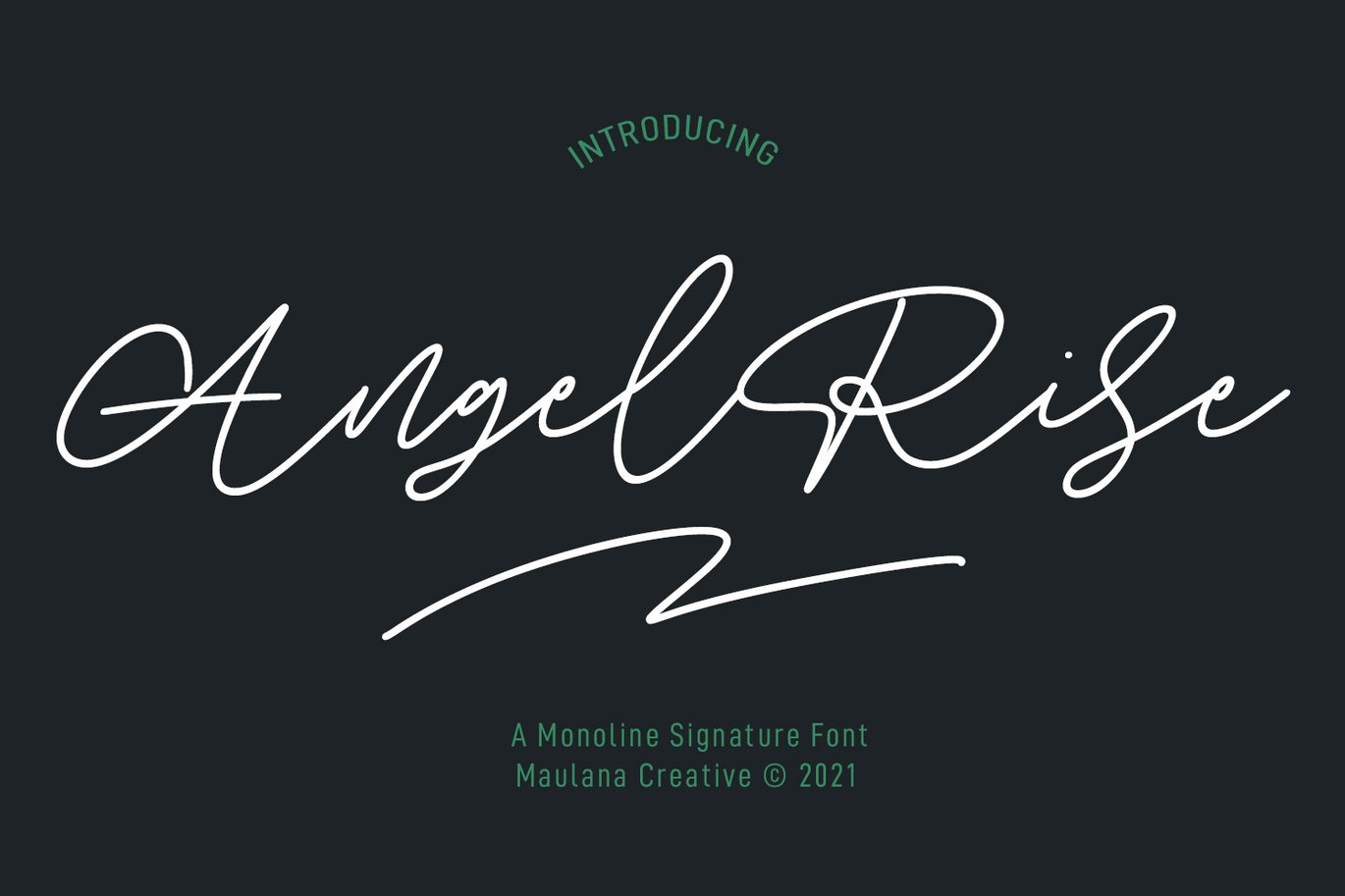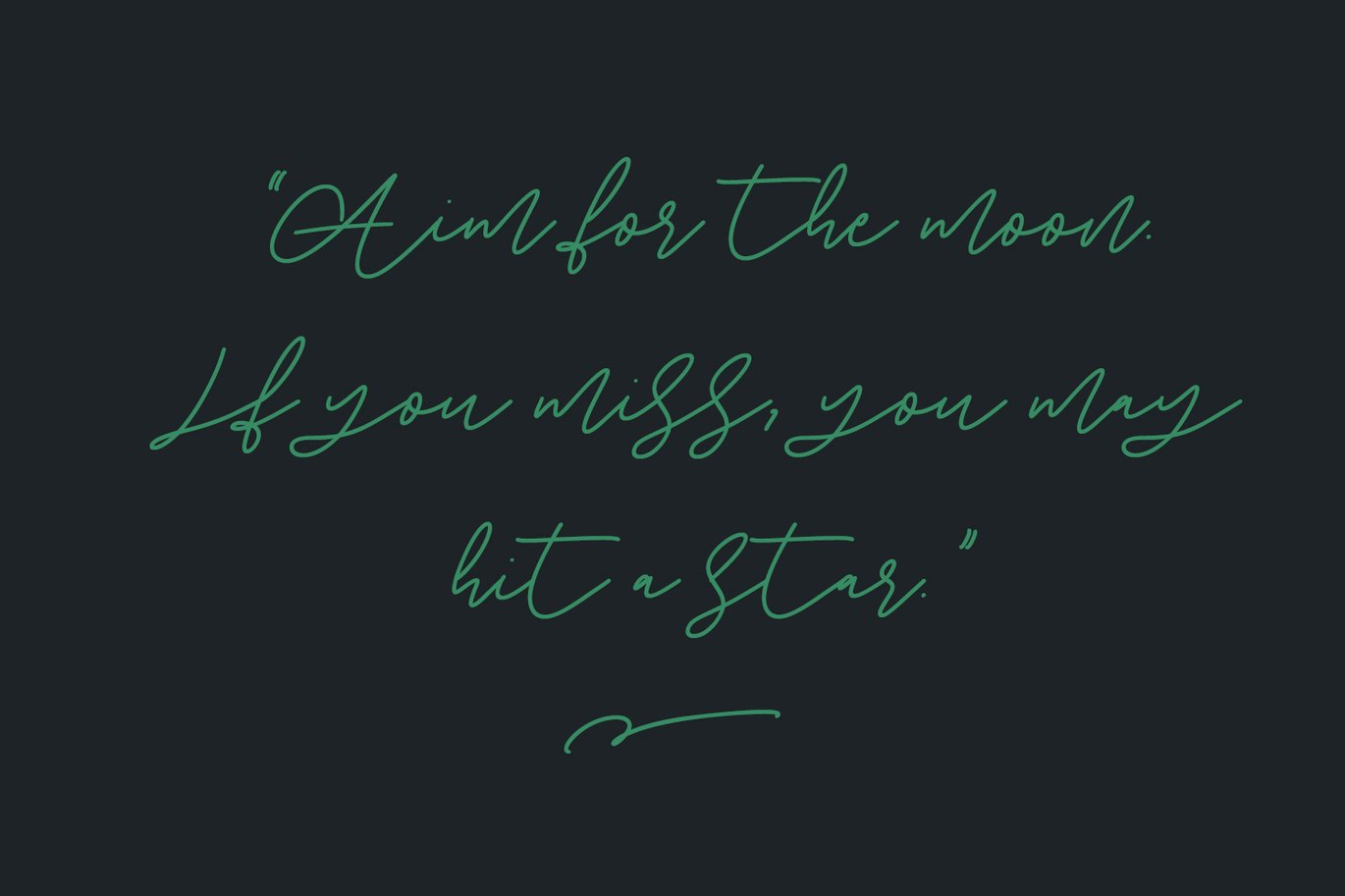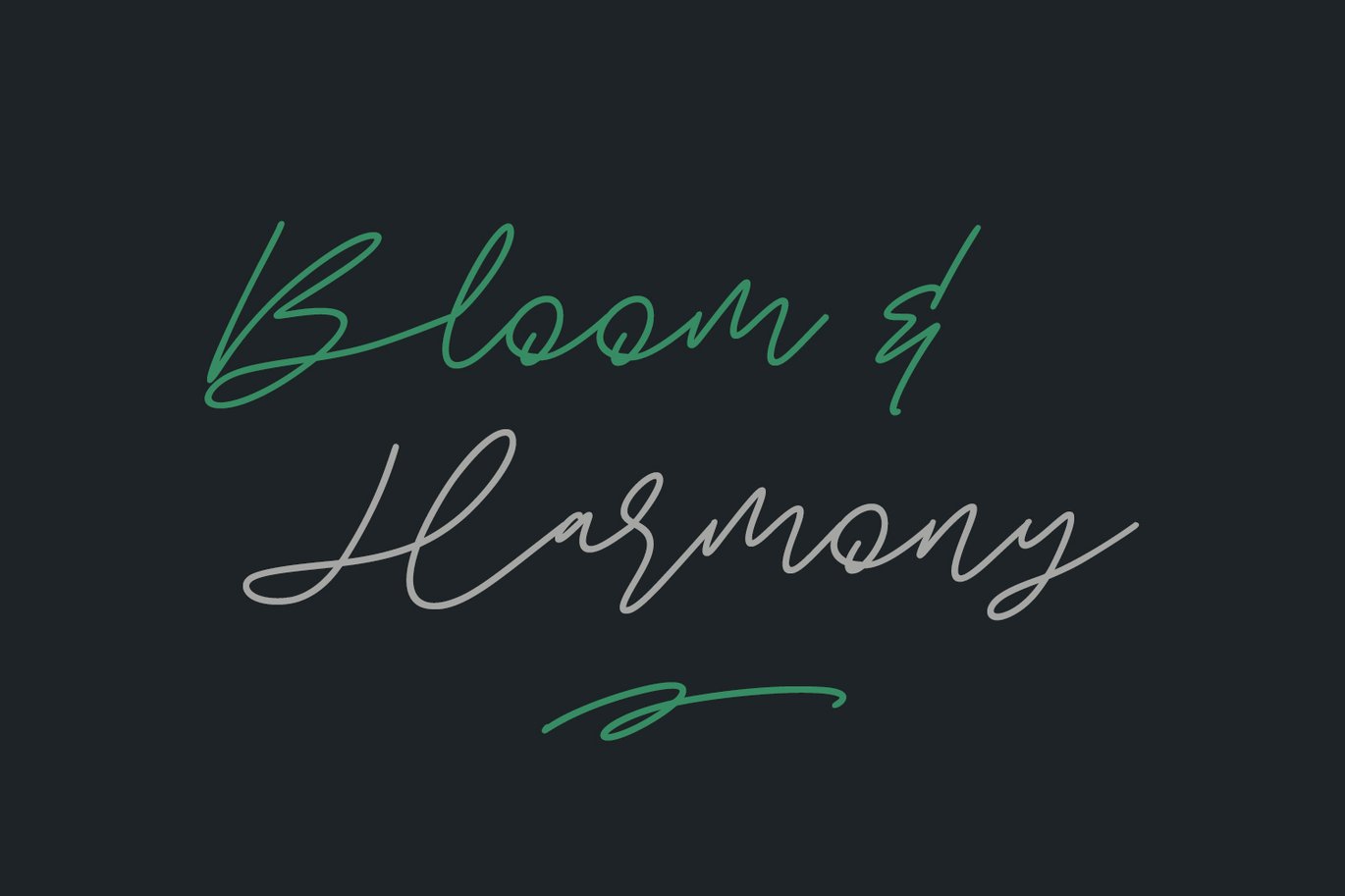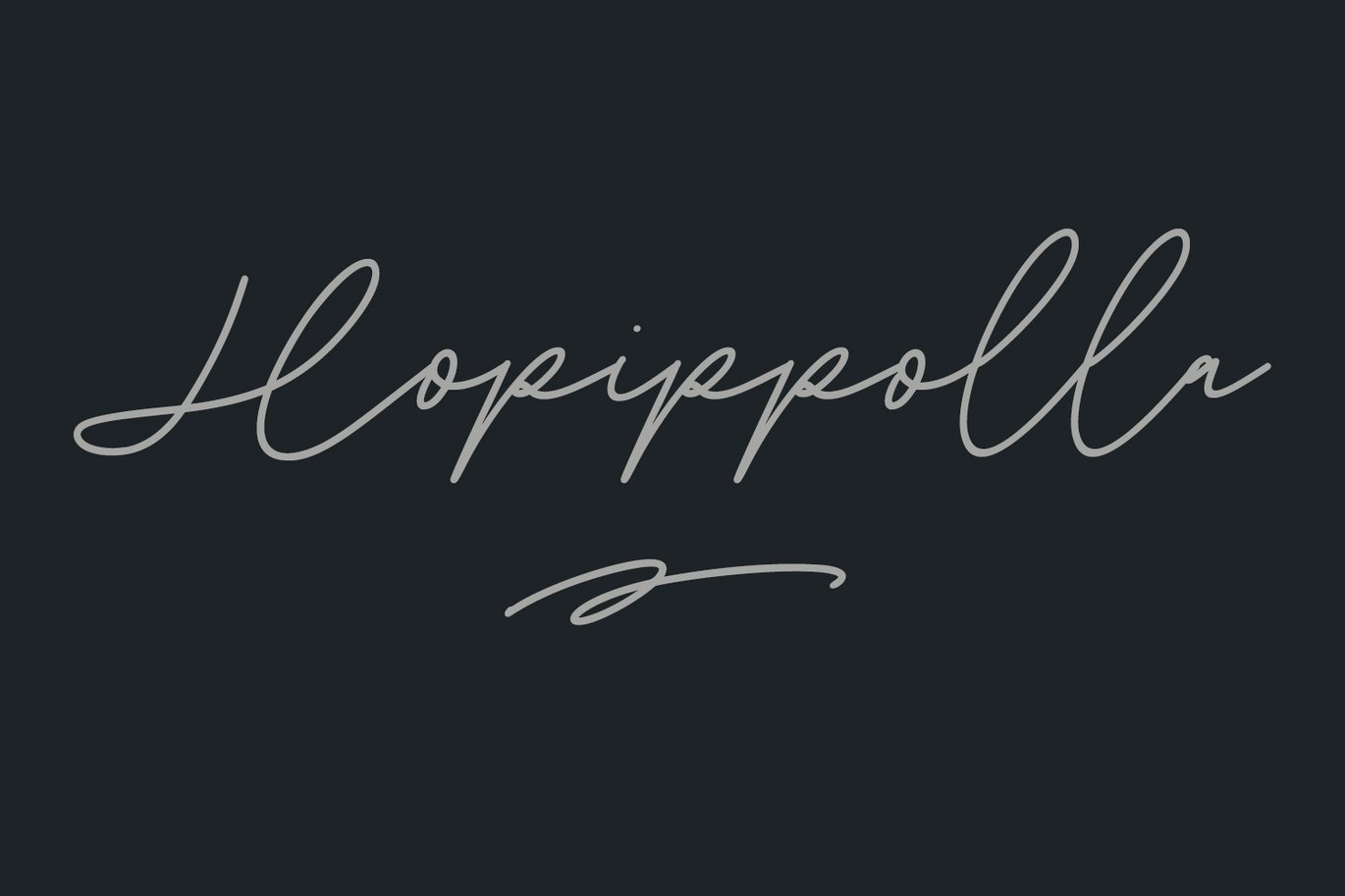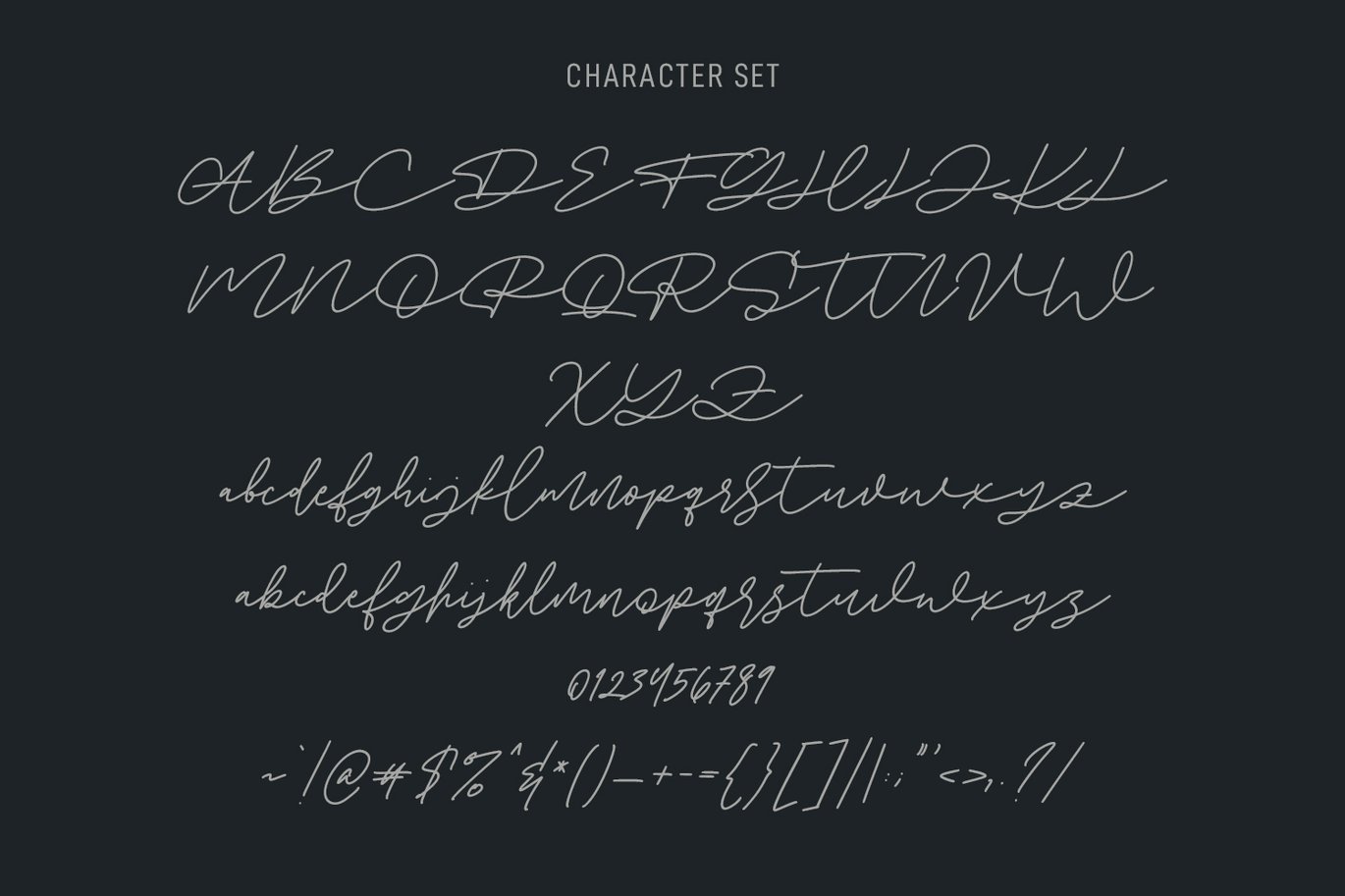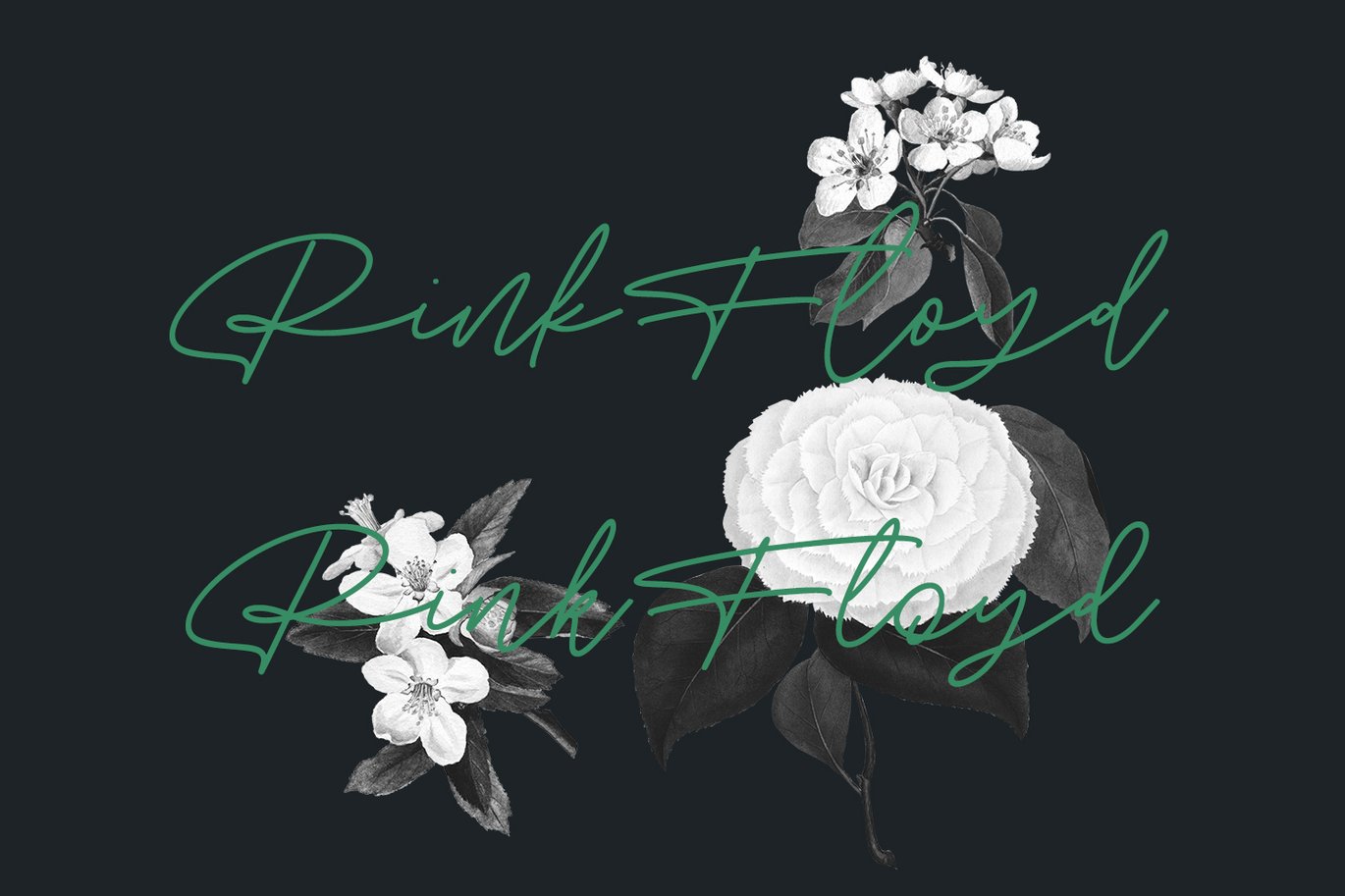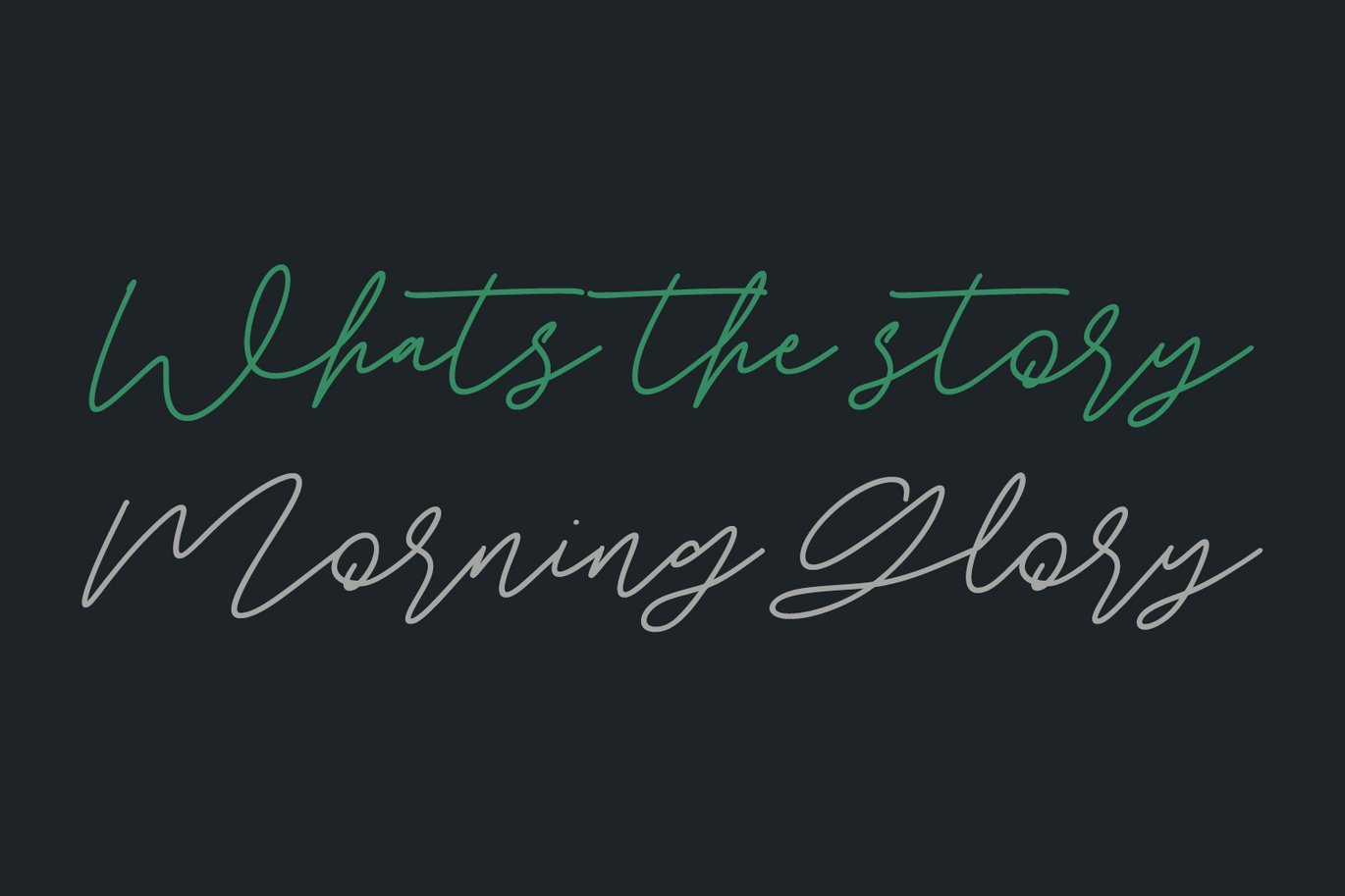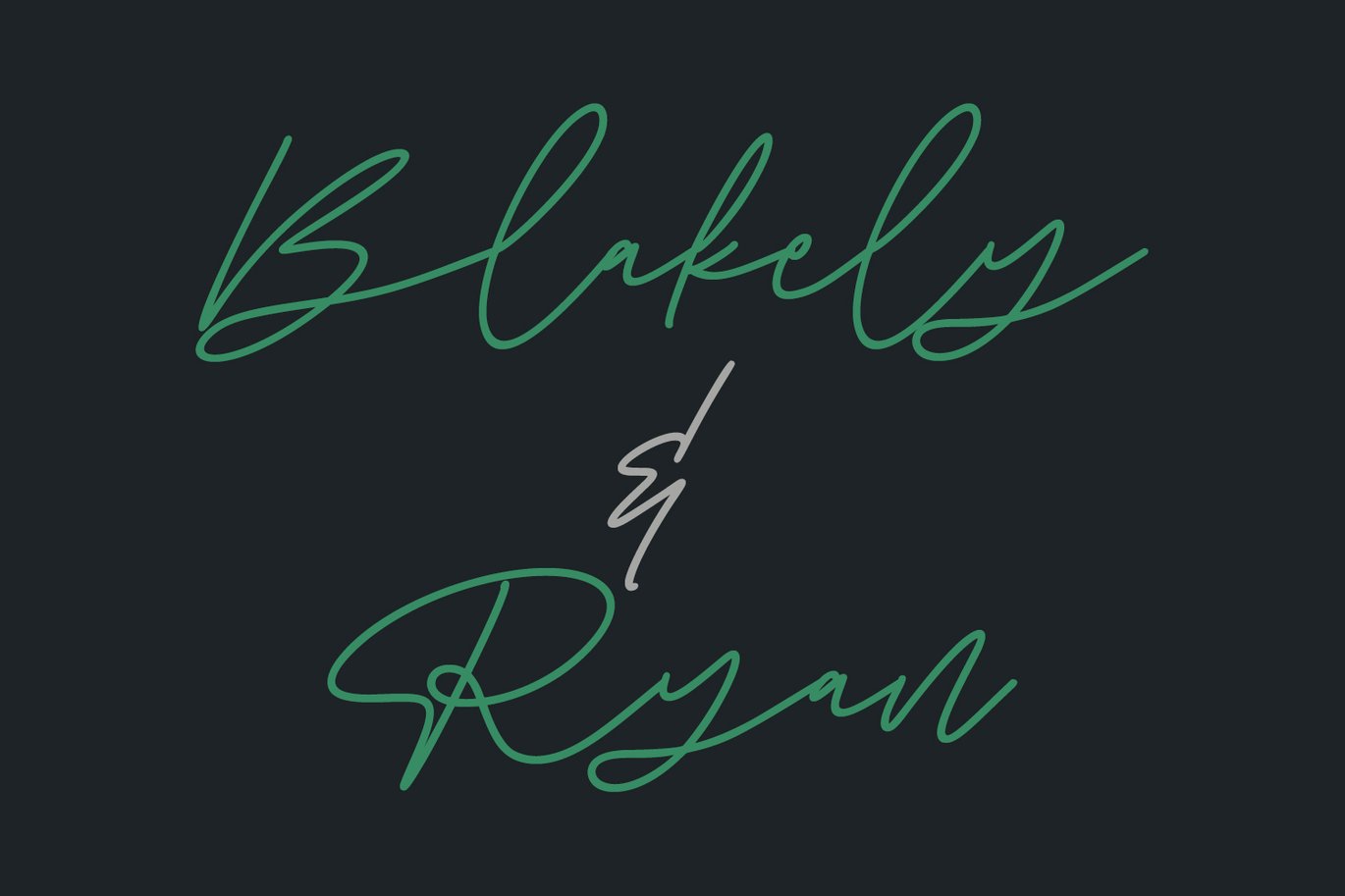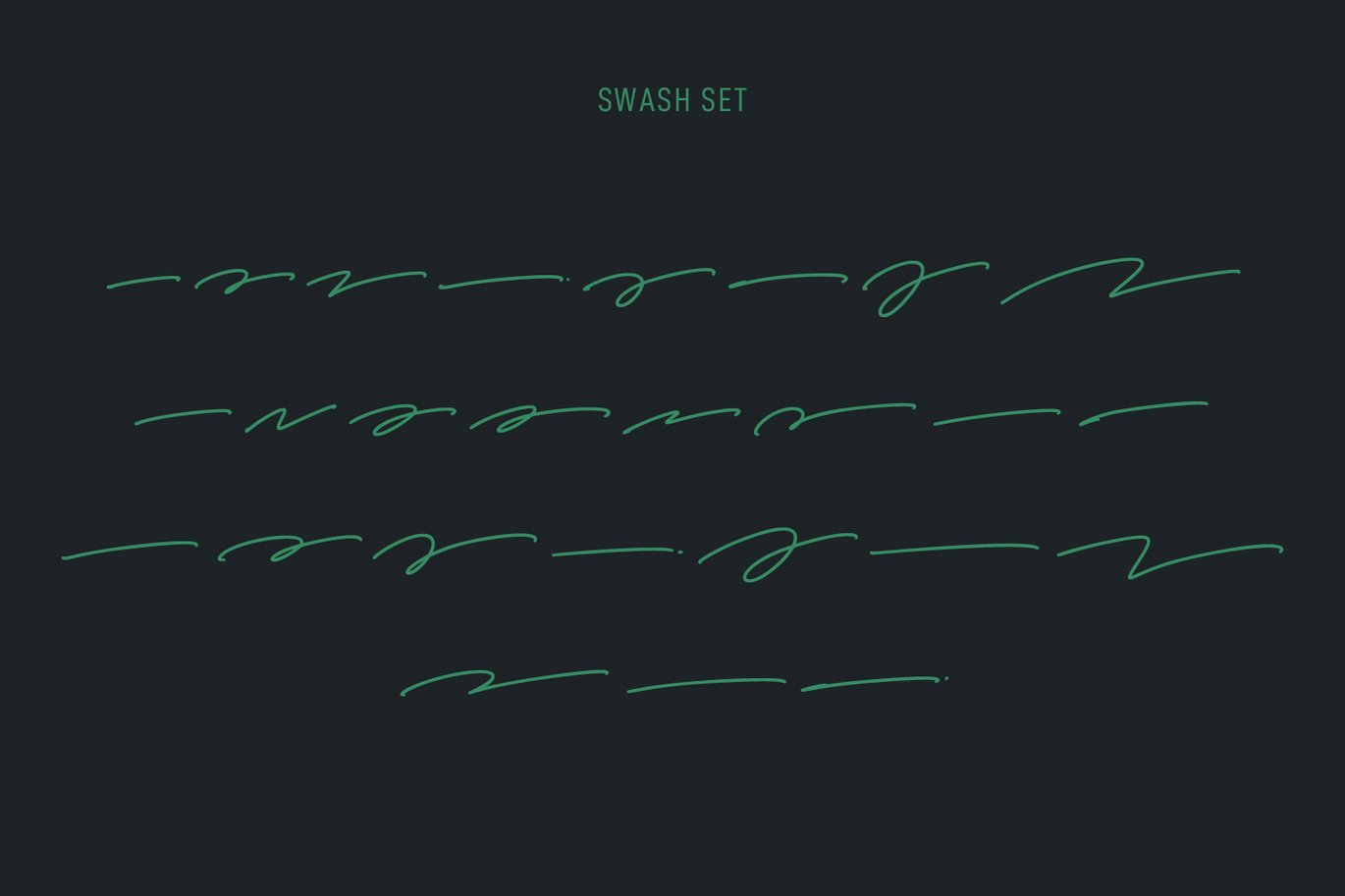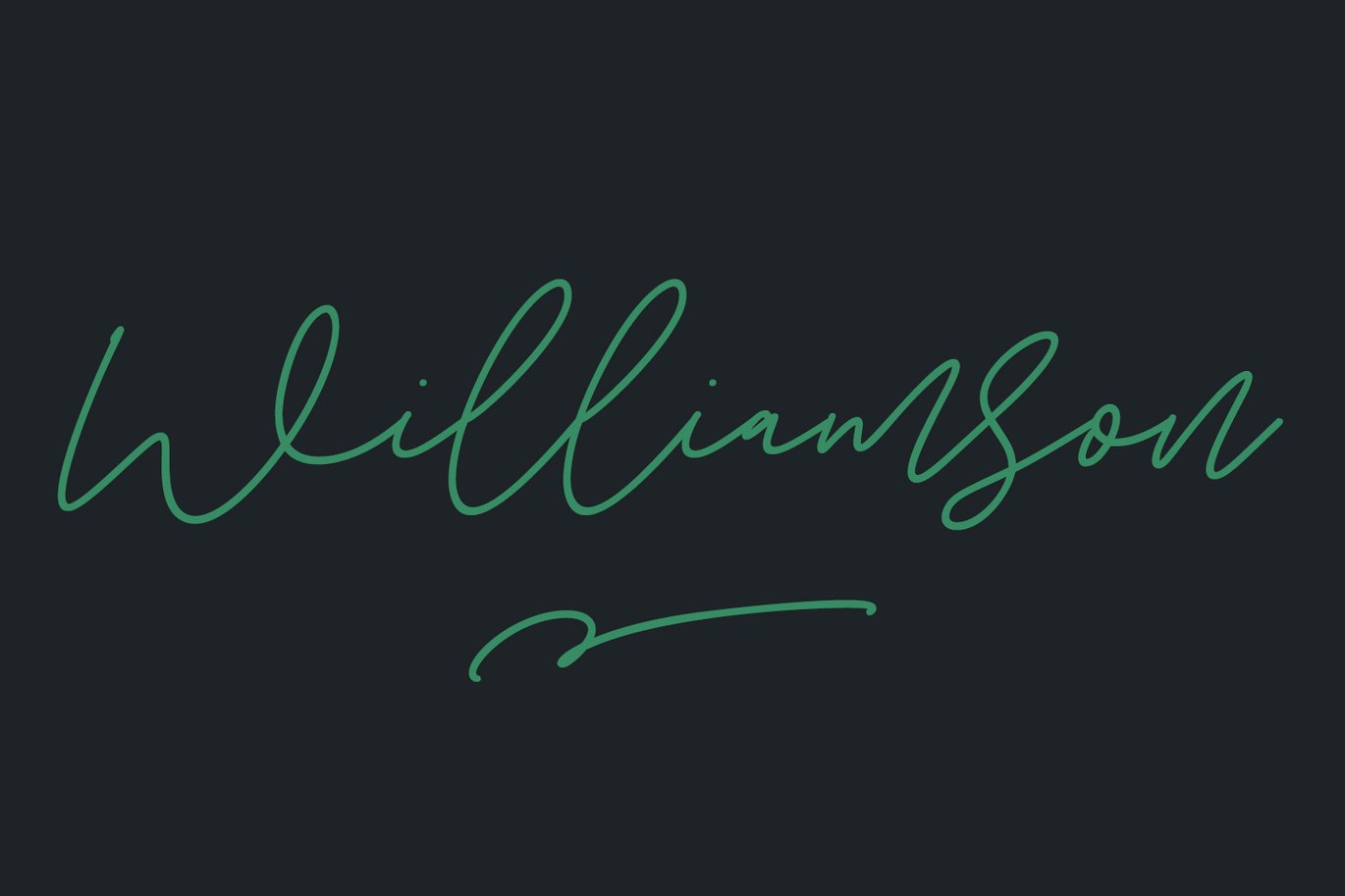
Angel Rise Monoline Signature Font
Angel Rise is an expressive signature font. With clean mono-line stroke, super slant and fun character with a different Upper and lower alternate style. To give you an extra creative work. Angel Rise font support multilingual more than 100+ language. This font is good for logo design, Social media, Movie Titles, Books Titles, a short text even a long text letter and good for your secondary text font with sans or serif. Make a stunning work with Angel Rise font.